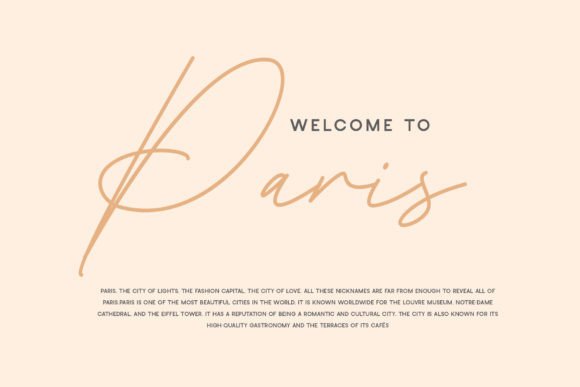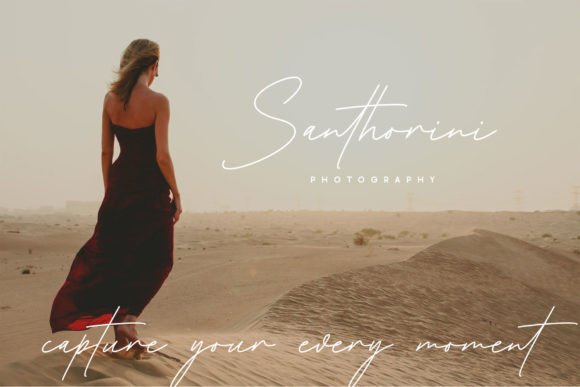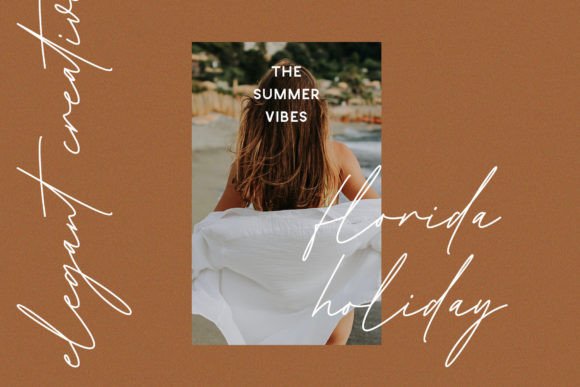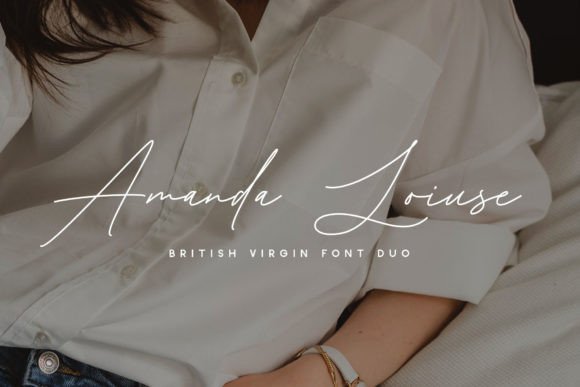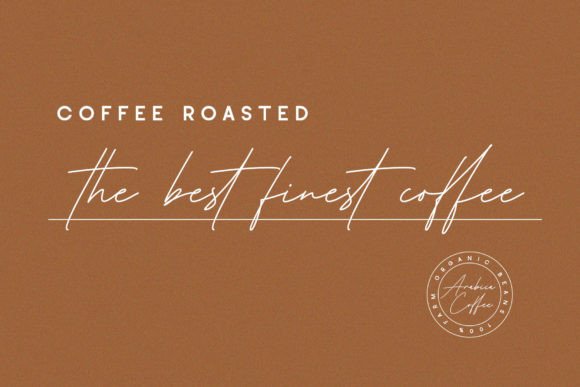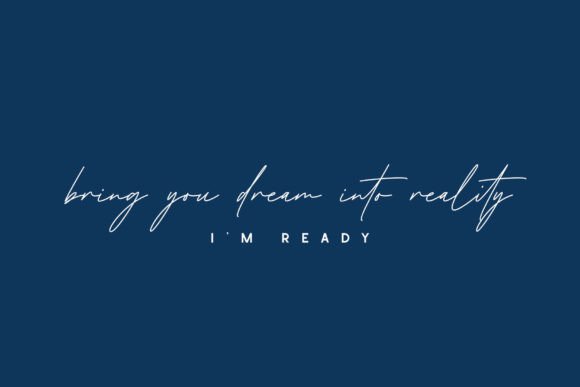
The British Virgin Font: A Modern, Elegant Choice for Designers
I still remember the design project that led me to discover the British Virgin font. I was working on a branding project for a luxury lifestyle brand, and I was struggling to find the perfect font that exuded both sophistication and casual elegance. That’s when I stumbled upon British Virgin, a simple, modern, and minimalist sans-serif typeface paired with a classy handwritten font. It was love at first sight! 💕
• ✨ The perfect blend of modern and classic: British Virgin seamlessly combines the simplicity of a sans-serif font with the elegance of a handwritten font.
• ✅ Highly versatile: This font can be used for a wide range of design projects, from branding and packaging to advertising and digital media.
• 💫 Beautifully crafted: The attention to detail in British Virgin is impressive, with clean lines, subtle curves, and a sophisticated overall feel.
While British Virgin is an excellent font, it’s not without its quirks. For example:
• ⚠️ The handwritten font can be a bit tricky to read at smaller sizes, so it’s best used for headlines or titles.
• 🤔 Some users may find the font a bit too minimalist for their taste, but I believe this is part of its charm.
3. Experiment with the font’s OpenType features, such as stylistic alternates and glyphs, to add visual interest to your design.
3. Choose British Virgin as your font and explore its OpenType features, such as ligatures and stylistic sets.
The Story Behind British Virgin
British Virgin was designed with the goal of creating a font that was both modern and elegant. The designer wanted to create a font that would be perfect for luxury brands and high-end design projects, but also accessible and easy to use. The result is a font that’s both sophisticated and approachable.
Q: What is the history behind the British Virgin font?
A: British Virgin was designed with the goal of creating a modern, elegant font that’s perfect for luxury brands and high-end design projects.
Q: Is British Virgin a versatile font?
A: Yes, British Virgin is a highly versatile font that can be used for a wide range of design projects, from luxury brands to more casual, creative projects.